Digital note-taking has revolutionized how we capture and organize information, and Goodnotes stands at the forefront of this transformation.
While the app’s natural handwriting recognition is impressive, incorporating beautiful handwriting fonts can elevate your notes from functional to exceptional.
In this post, we will look at some of the most amazing handwriting fonts that look great when you use them for note-taking in Goodnotes.
1. Indie Flower
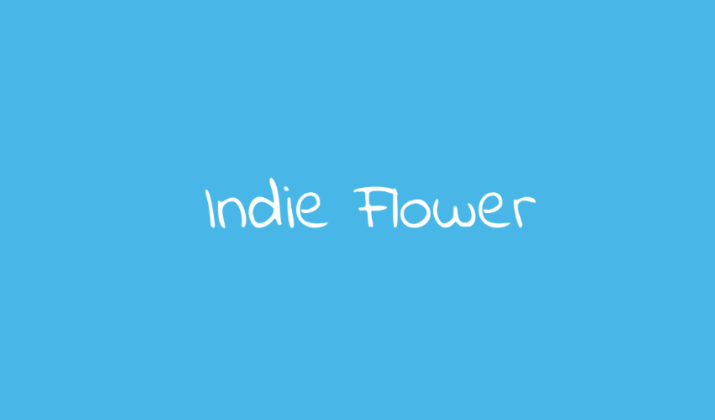
Indie Flower captures the whimsical, slightly imperfect charm of casual handwriting with its relaxed, friendly appearance that feels genuinely hand-drawn.
This font’s irregular baseline and varied letter spacing create an authentic, organic feel that’s perfect for creative projects, brainstorming sessions, or informal note-taking.
The slightly rounded letterforms and moderate stroke weight ensure good readability while maintaining that personal, approachable character that makes notes feel warm and inviting.
Indie Flower works exceptionally well for art journals, creative writing, travel logs, or any Goodnotes application where you want your text to feel spontaneous and heartfelt.
2. Shadows Into Light
Shadows Into Light offers a clean, contemporary take on handwriting with slightly condensed letters that maximize page space without sacrificing readability.
This font’s consistent letterforms and moderate contrast make it an excellent choice for structured note-taking, where clarity and organization are paramount.
The subtle personality in each character prevents the text from feeling sterile while maintaining the professionalism needed for business notes or academic work.
Its balanced proportions and reliable legibility make Shadows Into Light particularly suitable for long-form writing, detailed study guides, or any situation where you need sustained reading comfort in your digital notes.
3. Amatic SC
Amatic SC brings a bold, condensed handwriting style that’s perfect for creating strong visual impact in your Goodnotes layouts.
This all-caps font features tall, narrow letterforms that make efficient use of vertical space while commanding attention, making it ideal for headers, labels, and emphasis text.
The slightly rough, hand-drawn quality adds character without compromising legibility, and its strong presence helps create clear visual hierarchy in complex note layouts.
Amatic SC works particularly well for mind maps, project timelines, technical diagrams, or any notes where you need to organize information with clear, bold headings that guide the reader’s eye.
4. Permanent Marker
Permanent Marker delivers the authentic look of bold marker writing with thick, confident strokes that make your text impossible to ignore.
This font’s heavy weight and slightly irregular edges perfectly simulate the experience of writing with an actual permanent marker, bringing raw energy and immediacy to your digital notes.
The condensed letterforms help conserve space while maintaining excellent readability, making it perfect for creating standout headers, important reminders, or attention-grabbing annotations.
Permanent Marker excels in brainstorming sessions, project planning, or any Goodnotes application where you want your text to feel urgent, important, and dynamically hand-drawn.
5. Architects Daughter
Architects Daughter combines the technical precision expected from architectural lettering with the warmth and personality of natural handwriting.
This font features clean, well-proportioned letters with subtle irregularities that prevent it from feeling mechanical while maintaining excellent legibility for detailed technical or academic notes.
The balanced stroke weight and consistent spacing make it particularly suitable for diagrams, technical documentation, or structured study materials where clarity is essential.
Its professional yet approachable character makes Architects Daughter perfect for engineering notes, architectural sketches, scientific documentation, or any Goodnotes application that requires both precision and personality.
6. Homemade Apple
Homemade Apple captures the authentic irregularity and charm of genuine handwriting with its uneven baseline and naturally varied letter spacing.
This font’s organic imperfections create a truly personal feel that’s perfect for journaling, creative writing, or any notes where you want to maintain the intimate quality of handwritten text.
The slightly condensed letterforms and moderate stroke weight ensure good readability while preserving the spontaneous, heartfelt character that makes handwritten notes so special.
Homemade Apple works beautifully for personal reflections, creative brainstorming, artistic projects, or any Goodnotes application where authenticity and emotional connection are more important than perfect uniformity.
7. Coming Soon
Coming Soon offers a playful, energetic handwriting style with slightly bouncy letterforms that bring enthusiasm and optimism to your digital notes.
This font’s informal character and friendly appearance make it perfect for creative projects, brainstorming sessions, or any notes where you want to maintain a positive, upbeat tone.
The well-balanced proportions and consistent stroke weight ensure excellent readability while the subtle personality in each letter keeps your text engaging and lively.
Coming Soon works particularly well for event planning, creative writing, motivational notes, or educational materials where you want to create an encouraging, approachable atmosphere that makes learning and note-taking feel enjoyable.
Also Read: Best MS Fonts Without Serif
8. Patrick Hand
Patrick Hand delivers clean, legible handwriting with a slightly technical feel that bridges the gap between casual script and professional documentation.
This font’s well-defined letterforms and consistent spacing make it excellent for detailed note-taking where readability is crucial, while subtle handwriting characteristics maintain visual interest and personality.
The balanced stroke weight and moderate slant create a comfortable reading experience that works well for extended text passages, making it ideal for lecture notes, research documentation, or comprehensive study guides.
Patrick Hand’s reliable legibility combined with its approachable handwriting style makes it a versatile choice for both academic and professional Goodnotes applications.
9. Satisfy
Satisfy brings elegant cursive styling to your Goodnotes pages with flowing letterforms that create beautiful, connected script reminiscent of traditional fountain pen writing.
This font’s sophisticated curves and graceful letter connections make it perfect for special occasions, formal documentation, or any notes where elegance and refinement are desired.
While its ornate nature requires careful consideration of readability, Satisfy excels when used for headings, quotes, invitations, or decorative text elements that add visual sophistication to your digital notebooks.
The font’s romantic character and flowing rhythm make it particularly suitable for wedding planning, poetry, formal correspondence, or any creative project that benefits from classical handwriting elegance.
10. Reenie Beanie
Reenie Beanie captures the casual, slightly rushed quality of quick handwritten notes with its relaxed letterforms and natural irregularities.
This font’s authentic imperfections and varied spacing create the feeling of spontaneous writing, making it perfect for brainstorming sessions, quick reminders, or informal note-taking where speed and authenticity matter more than perfect presentation.
The slightly condensed characters and moderate stroke weight maintain good readability while preserving the organic, unpolished charm that makes handwritten notes feel genuine and personal.
Reenie Beanie works exceptionally well for creative writing, personal journals, quick meeting notes, or any Goodnotes application where you want to capture the immediate, unfiltered quality of thoughts written in the moment.
11. Covered By Your Grace
Covered By Your Grace offers gentle, flowing handwriting with soft curves and consistent letterforms that create a calm, reassuring reading experience.
This font’s balanced proportions and subtle personality make it excellent for extended writing sessions, where readability and visual comfort are essential for sustained reading.
The warm, friendly character helps create an inviting atmosphere in your notes, making complex information feel more approachable and less intimidating.
Covered By Your Grace works particularly well for educational materials, therapeutic journaling, devotional writing, or any GoodNotes application where you want to create a supportive, nurturing environment that encourages learning and personal growth.
Also Read: Fonts That Look Like Kids’ Handwriting
12. Just Me Again Down Here
Just Me Again Down Here provides quirky, playful handwriting with distinctive character variations that add personality and humor to your digital notes.
This font’s unconventional letterforms and slightly erratic spacing create a unique, memorable appearance that’s perfect for creative projects, personal expression, or any notes where you want to stand out from conventional formatting.
While its distinctive style requires thoughtful application, the font excels in creative brainstorming, artistic projects, personal journals, or motivational notes where individuality and self-expression are valued.
Just Me Again Down Here’s bold personality makes it ideal for adding character to headers, quotes, or any text elements where you want to inject fun and originality into your Goodnotes pages.
13. Caveat
Caveat strikes the perfect balance between casual handwriting and professional legibility, making it ideal for everyday note-taking in Goodnotes.
This Google Font features slightly irregular letterforms that mimic natural handwriting variations, giving your digital notes an authentic, personal touch.
The font’s moderate slant and consistent spacing ensure excellent readability even at smaller sizes, making it perfect for detailed study notes or lengthy meeting minutes.
Its playful yet sophisticated character makes it versatile enough for both academic and creative projects, while maintaining the organic feel that makes handwritten notes so appealing.
Also Read: Best Signature Fonts In Word
14. Kalam
Kalam brings a distinctly artistic flair to your Goodnotes pages with its bold, marker-like appearance that resembles writing with a felt-tip pen.
This font excels in creating headers, titles, and emphasis text that demands attention without overwhelming the overall design of your notes.
The slightly condensed letterforms and strong stroke contrast make Kalam particularly effective for highlighting key concepts, creating mind maps, or adding visual hierarchy to your study materials.
Its informal yet confident personality makes it an excellent choice for creative brainstorming sessions, project planning, or any notes where you want to inject energy and enthusiasm.
15. Dancing Script
Dancing Script transforms your digital notes into elegant, flowing masterpieces with its sophisticated cursive styling that mimics traditional calligraphy.
The font’s graceful connections between letters create a seamless writing flow that’s particularly beautiful for journaling, creative writing, or special occasion note-taking.
While its ornate nature makes it less suitable for dense technical notes, Dancing Script shines when used for quotes, headings, or personal reflections within your Goodnotes pages.
The font’s romantic and refined character adds a touch of luxury to any document, making it perfect for wedding planning, poetry, or any notes where aesthetics are as important as content.
Conclusion
Selecting the right handwriting font for your Goodnotes experience can transform routine note-taking into an enjoyable, personalized activity.
Not only will it reflect your unique style but also impress one and all.
Start experimenting with these fonts now to add novelty and freshness to your notes and comments.